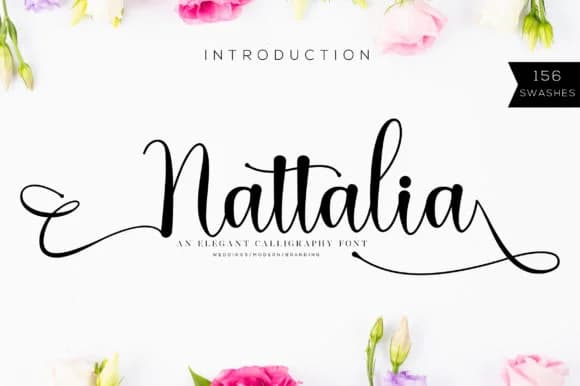
Nattalia Font by fanastudio is a feminine script with elegant flourishes and refined letterforms that brings timeless sophistication to creative projects. The graceful strokes and delicate design make it well-suited for luxury branding applications, from cosmetics packaging and boutique skincare labels to high-end stationery suites. Its upscale aesthetic works particularly well on wedding invitation designs and celebration cards where modern elegance matters. The font's flowing, organic character suits sophisticated logo designs targeting beauty, wellness, and lifestyle brands.
Beyond traditional print, this script font proves versatile for digital applications including social media graphics, email campaigns, and brand identity projects. Personal branding portfolios benefit from the handcrafted warmth Nattalia delivers, as do artisanal product labels and premium packaging designs that communicate quality and refinement. The font maintains excellent readability despite its flourished nature, making it suitable for headings in blogs, magazine covers, and lifestyle publications. Whether designing journaling templates, greeting cards, or creative business stationery, the character design evokes sophistication while retaining an accessible, contemporary feel.
Nattalia Font is a script font that shines as a display or heading face. Pair it with a clean sans-serif or serif font for body text β the contrast creates a clear hierarchy while the two styles stay balanced and easy to read.
Nattalia Font